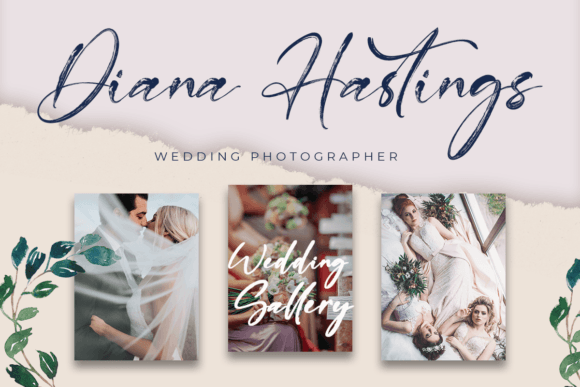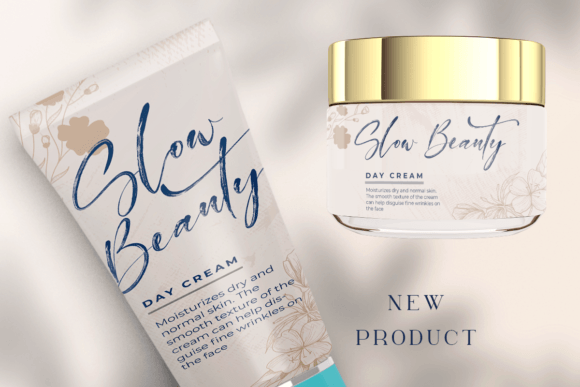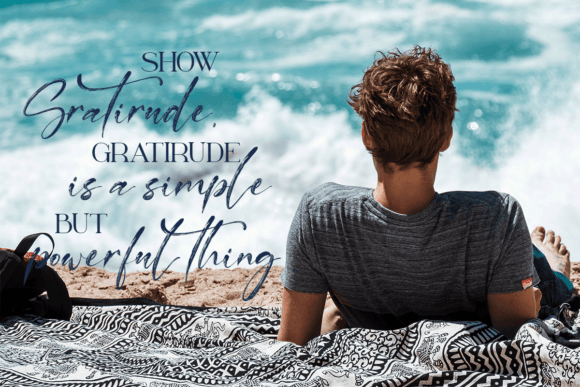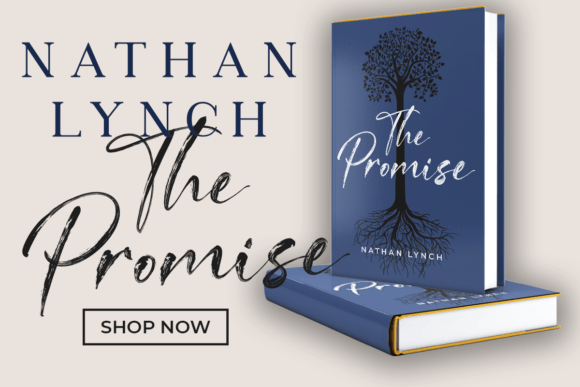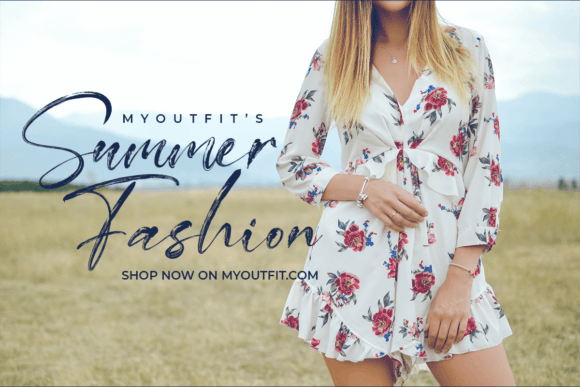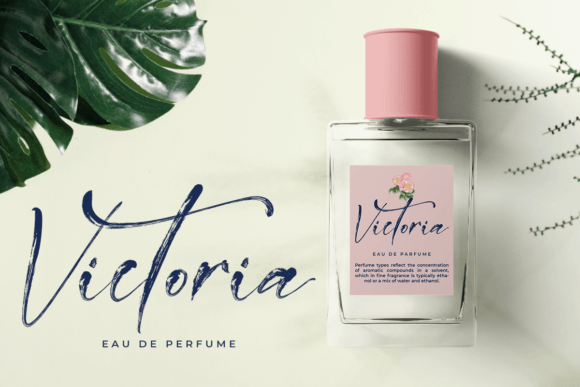
Discover the Beauty of Geoffrey Brush Font: Elevate Your Designs with Elegance
In the world of typography, fonts play a crucial role in making or breaking a design. As a designer or crafter, you’re constantly on the lookout for unique and beautiful fonts that can add a touch of elegance to your projects. If you’re searching for a font that exudes softness, liveliness, and sophistication, look no further than Geoffrey Brush Font. This stunning brush-style font is sure to captivate your audience and take your designs to the next level.
The Unique Charm of Geoffrey Brush Font
Geoffrey Brush Font is a one-of-a-kind typeface that boasts a soft and lively feel, making it perfect for a wide range of design projects. The brush-style letterform has a distinctive, hand-crafted look that adds a touch of warmth and personality to any design. Whether you’re working on a branding project, creating social media graphics, or designing a website, this font is sure to make your designs stand out from the crowd.
Elegance at Its Finest
One of the standout features of Geoffrey Brush Font is its elegant look. The font’s smooth, flowing lines and delicate curves create a sophisticated and refined aesthetic that’s perfect for designs that require a touch of luxury. Whether you’re designing a logo, brochure, or packaging, this font is sure to elevate your designs and leave a lasting impression on your audience.
PUA Encoding: Unlocking Endless Creative Possibilities
Geoffrey Brush Font is PUA (Private Use Area) encoded, which means you can access a wide range of amazing glyphs and ligatures with ease. This feature allows you to unlock endless creative possibilities and take your designs to new heights. With PUA encoding, you can easily access alternative characters, swashes, and other special features that will make your designs truly unique.
Why Designers and Crafters Love Geoffrey Brush Font
So, what makes Geoffrey Brush Font a favorite among designers and crafters? Here are just a few reasons why this font is a must-have in your design arsenal:
- Versatility: Geoffrey Brush Font is incredibly versatile and can be used in a wide range of design projects, from branding and advertising to packaging and web design.
- Elegance: The font’s elegant look makes it perfect for designs that require a touch of sophistication and luxury.
- Easy to Use: With PUA encoding, you can easily access all the font’s features and glyphs, making it easy to use and incorporate into your designs.
- Unique: Geoffrey Brush Font is a one-of-a-kind typeface that will set your designs apart from the crowd.
Tips and Tricks for Using Geoffrey Brush Font
Now that you’re eager to get started with Geoffrey Brush Font, here are a few tips and tricks to keep in mind:
- Pair it with bold fonts: Combine Geoffrey Brush Font with bold, sans-serif fonts for a striking contrast that will make your designs pop.
- Experiment with colors: The font’s elegant look pairs perfectly with a wide range of colors, so don’t be afraid to experiment and find the perfect combination for your design.
- Use it for headlines: Geoffrey Brush Font is perfect for headlines and titles, where its elegant look can really shine.